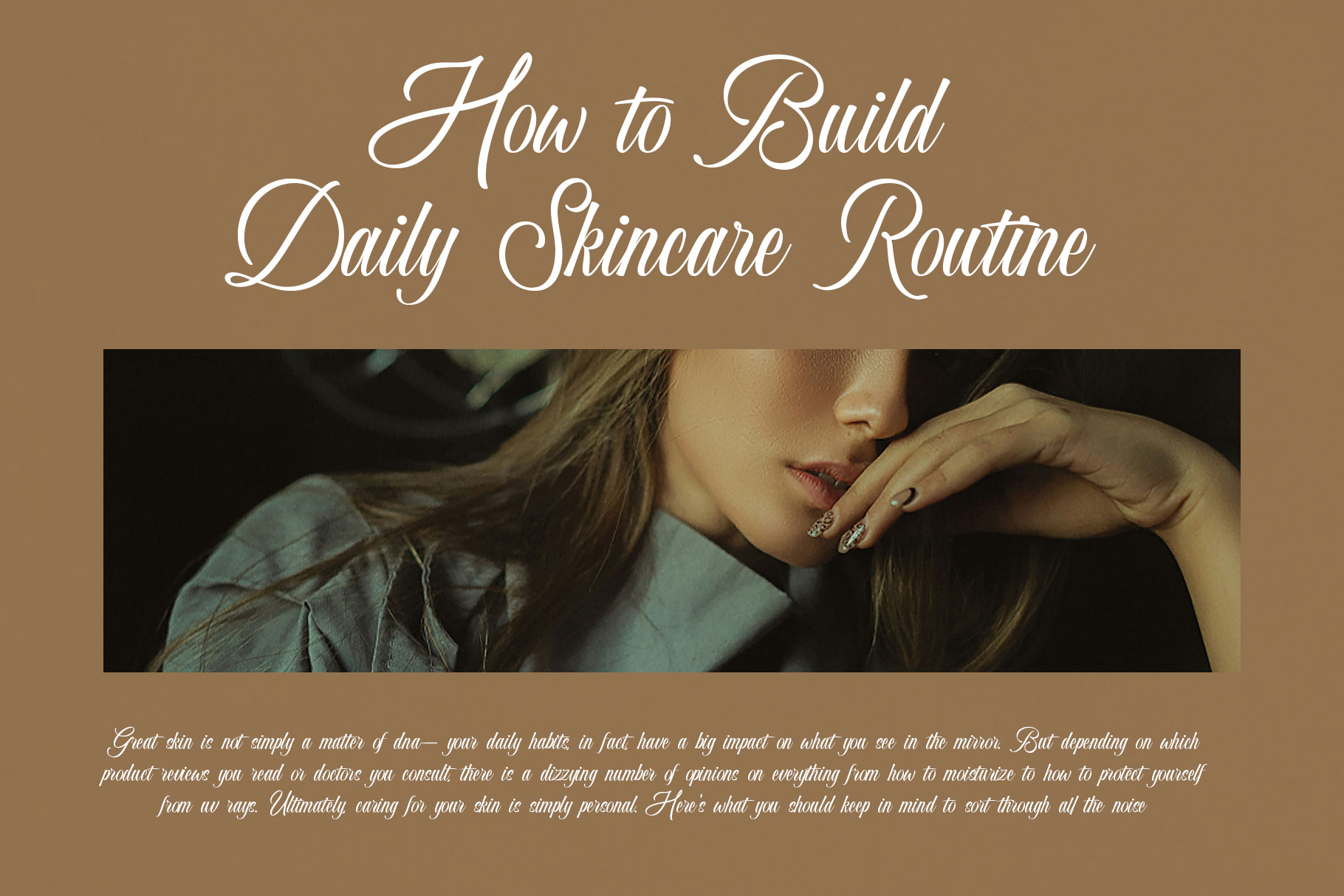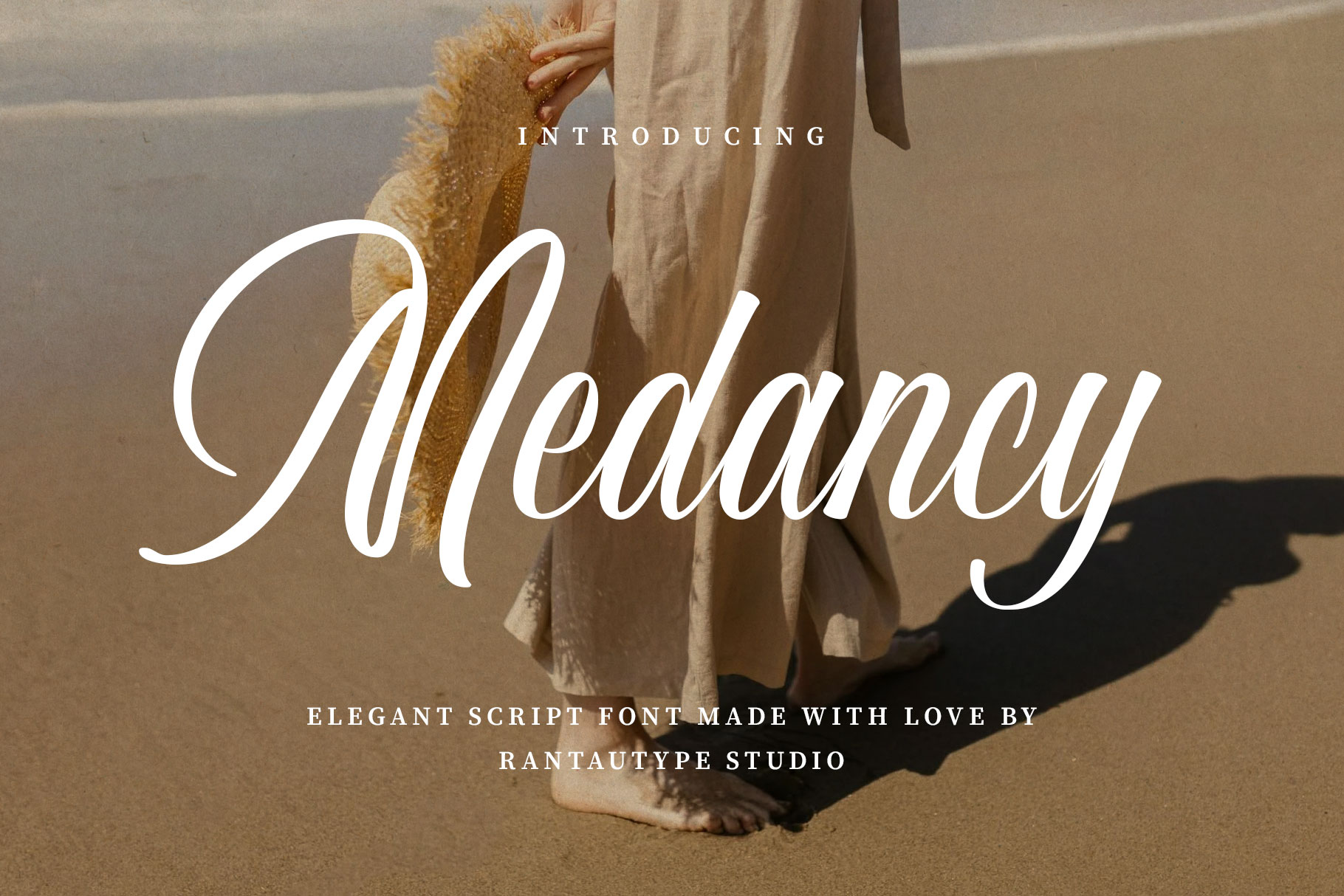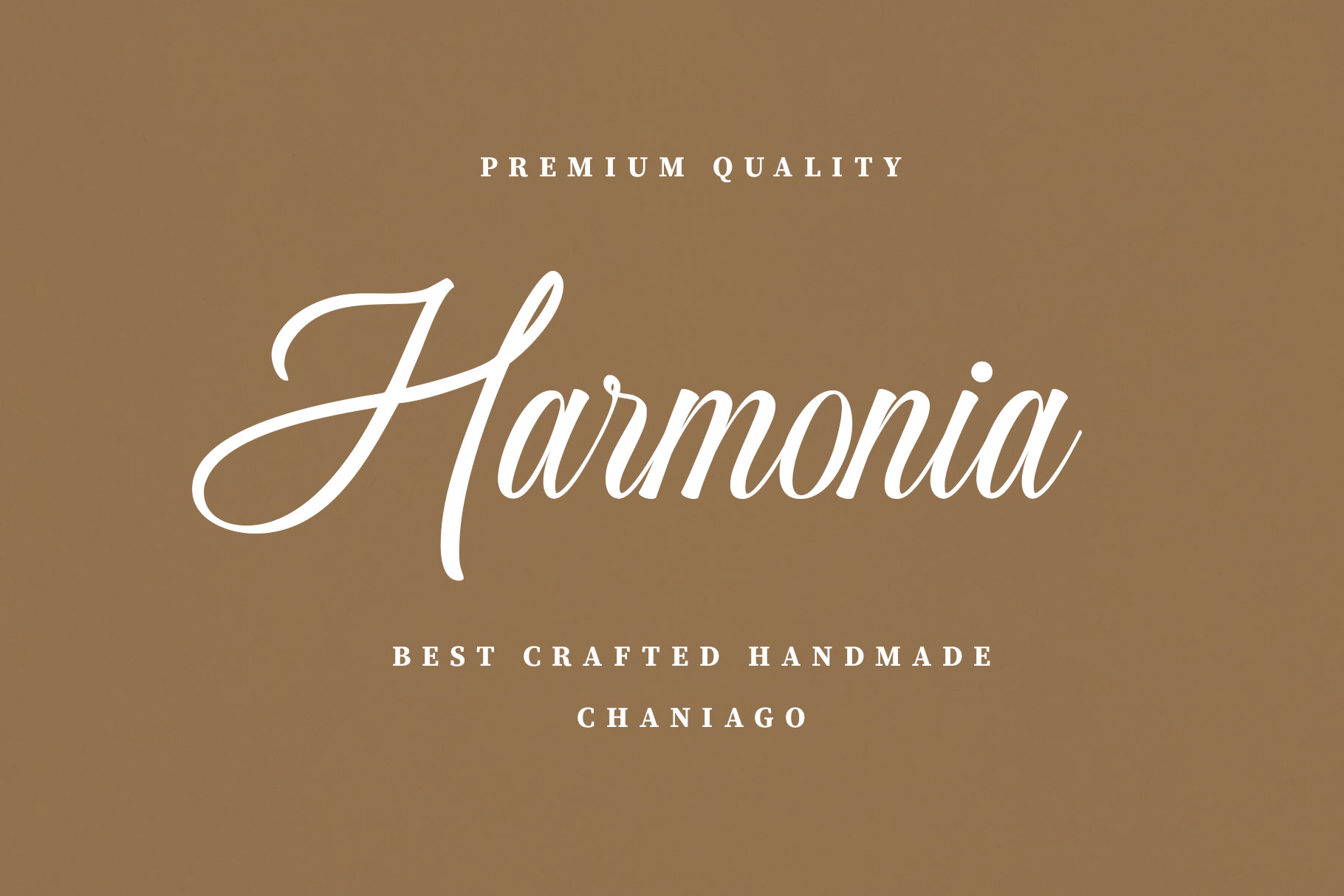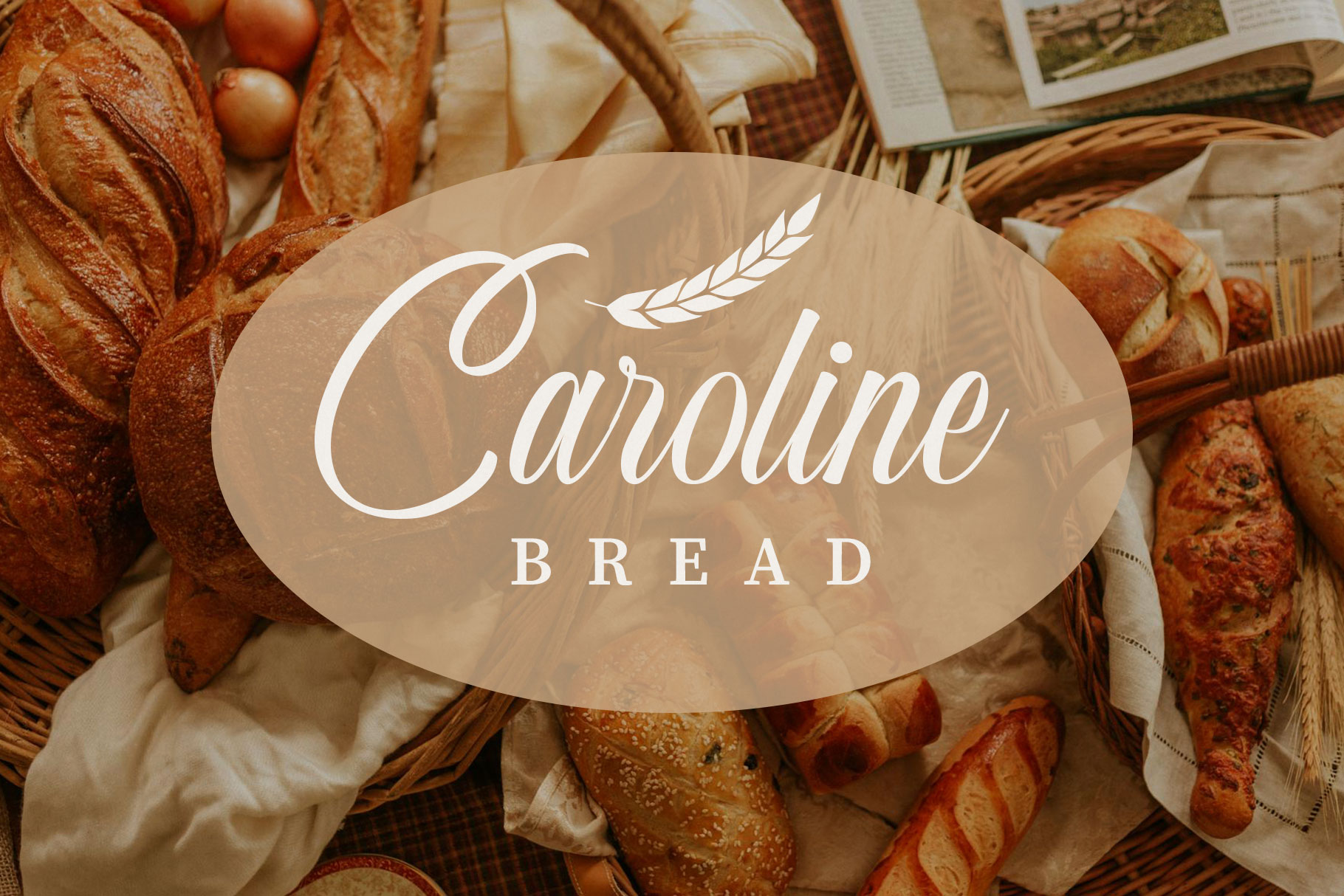
Medancy Elegant Script Font
Medancy is elegant script with flowless curve embrace grace and vintage vibes. Medancy is a perfectly choice for any creative endeavor, creating, modern, chic, lifestyle design such as logotype, title, cover, branding, invitations, wedding designs, display and magazine, social media posts, advertisements, printed quotes, product packaging, corporate brand, product designs, labels, photography, watermarks, special events and any other project with vintage touch.